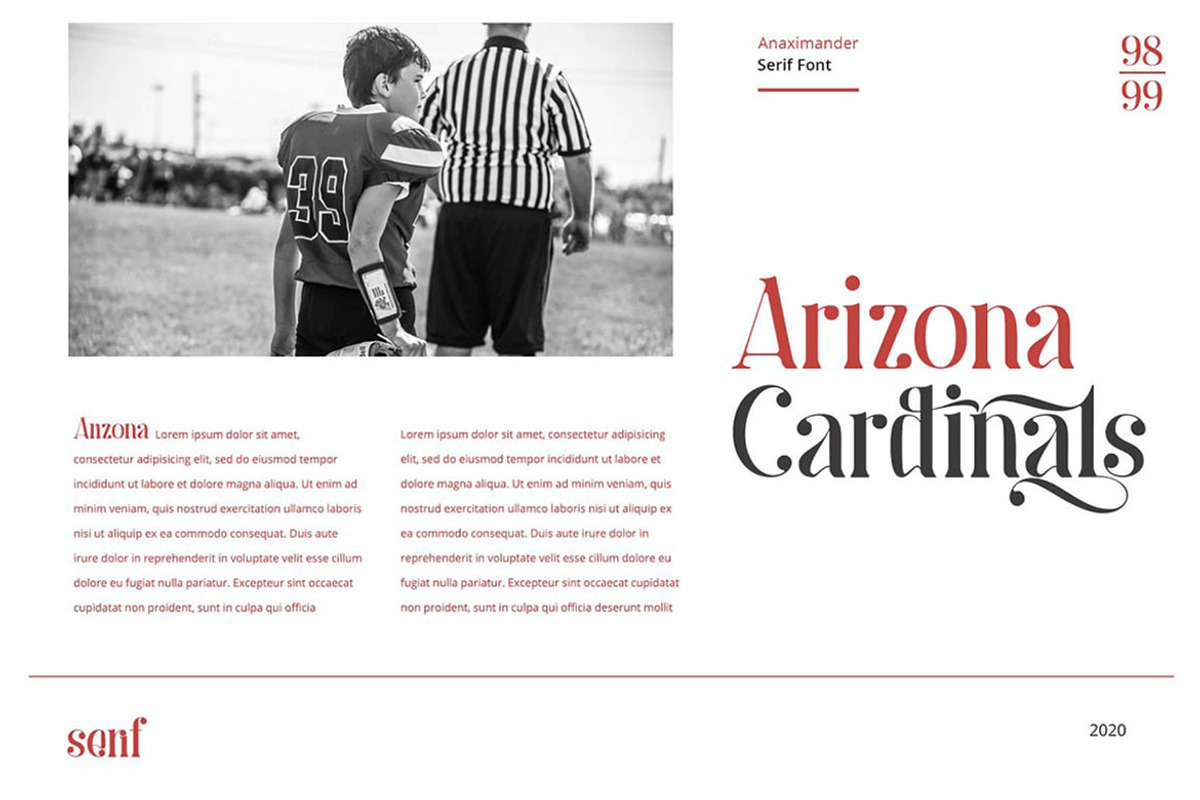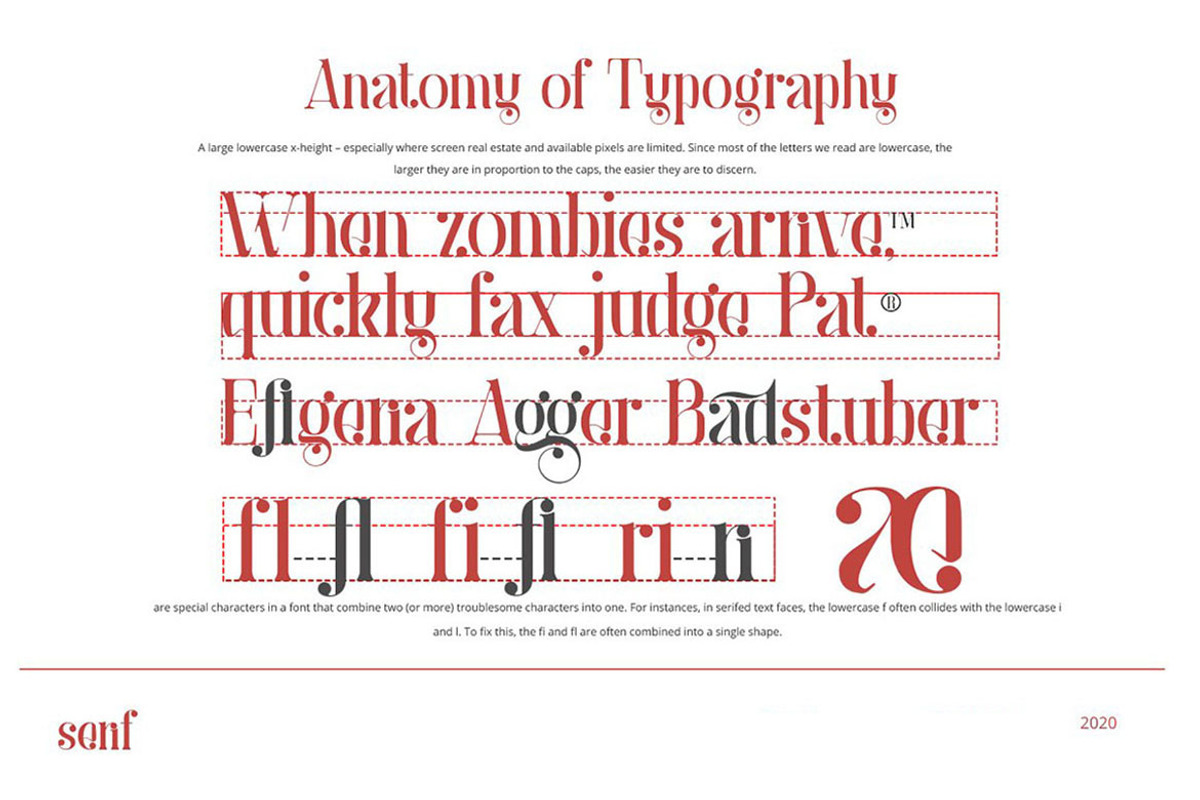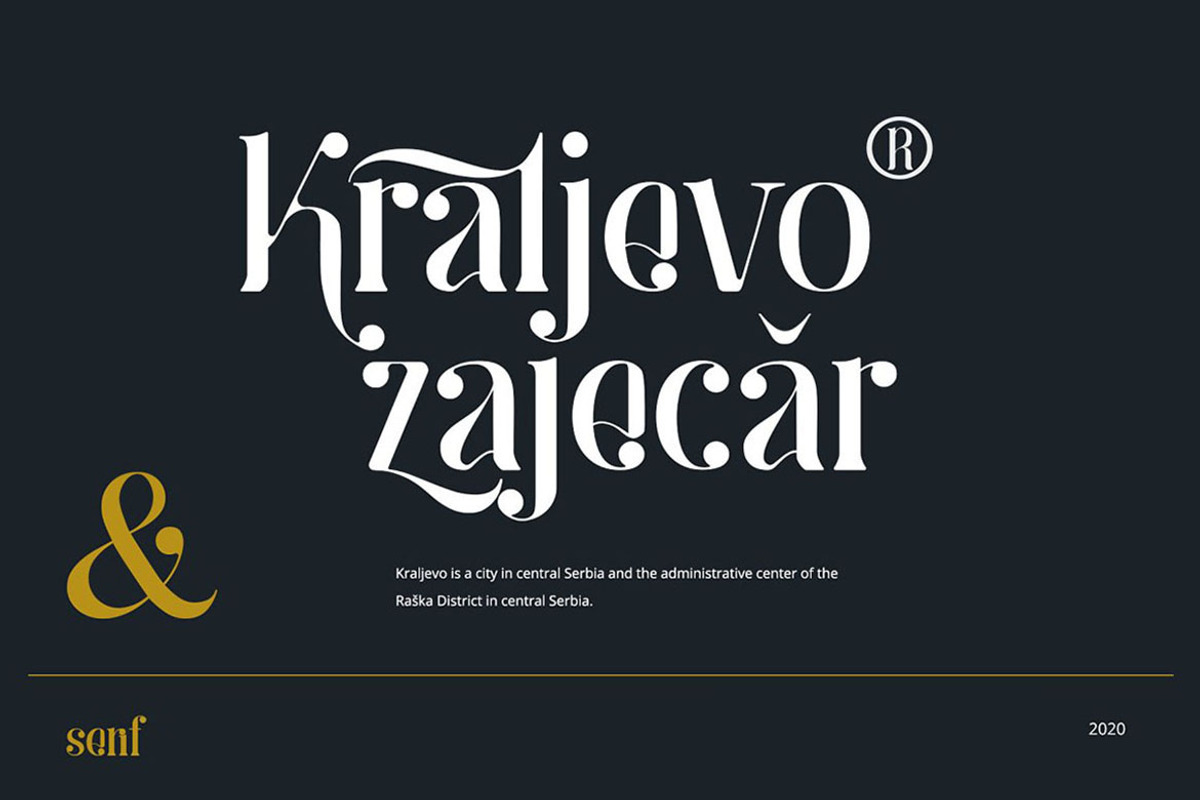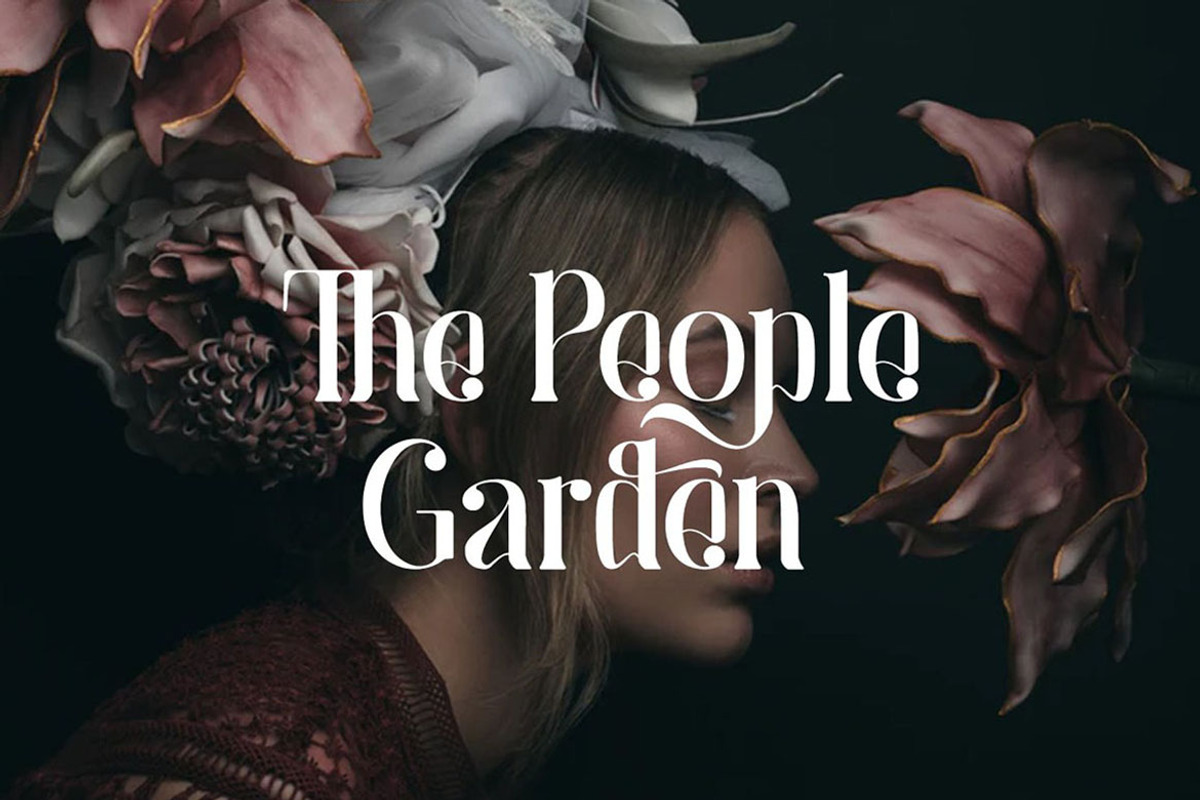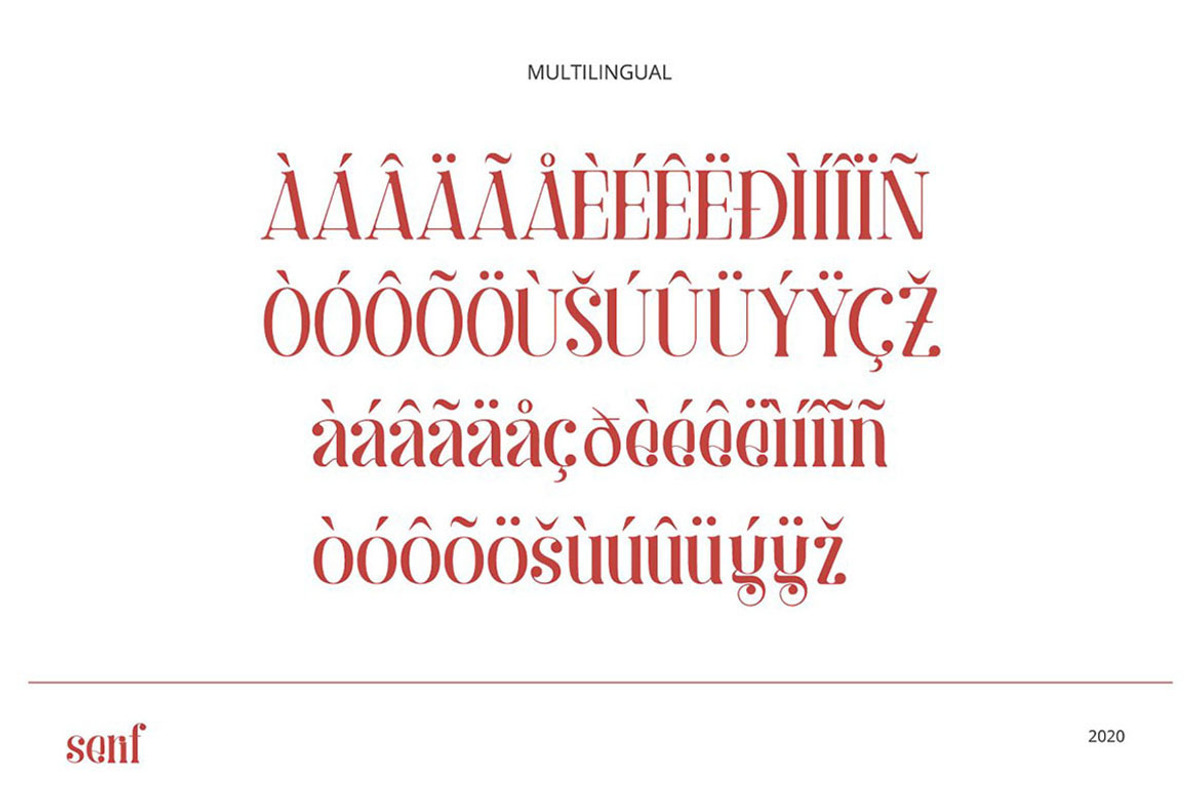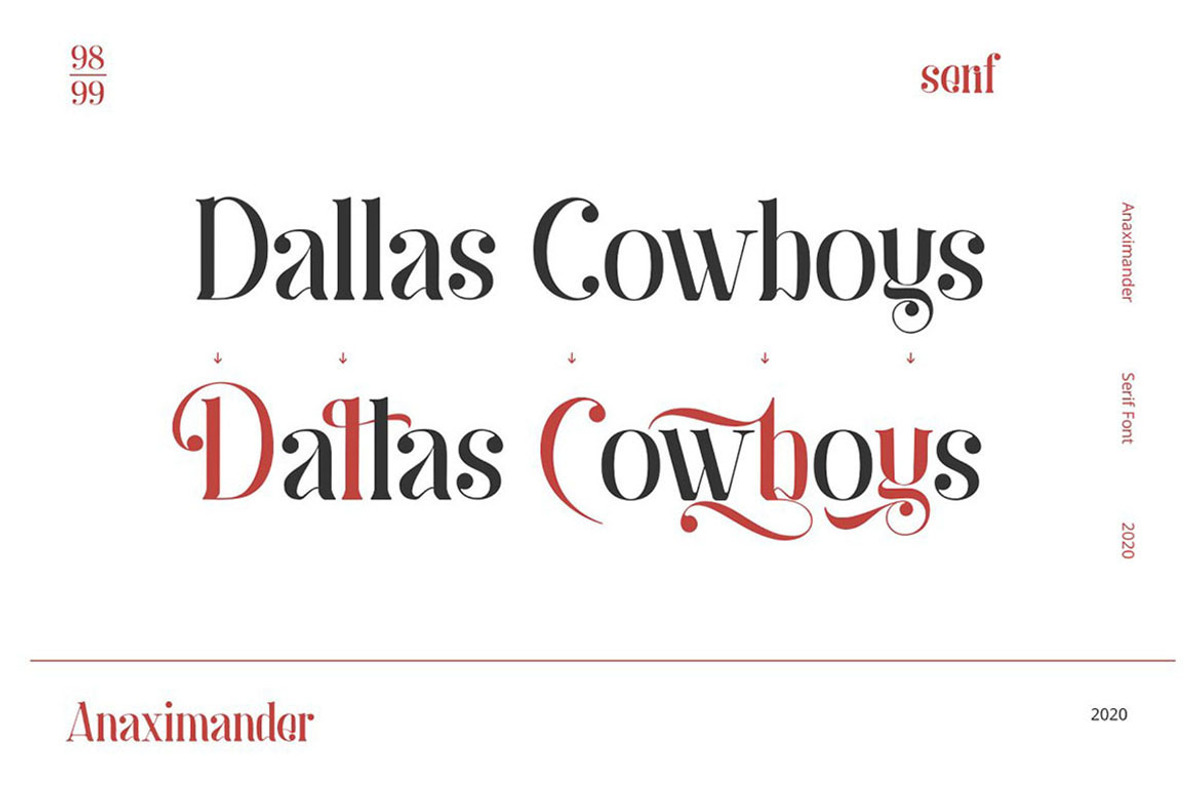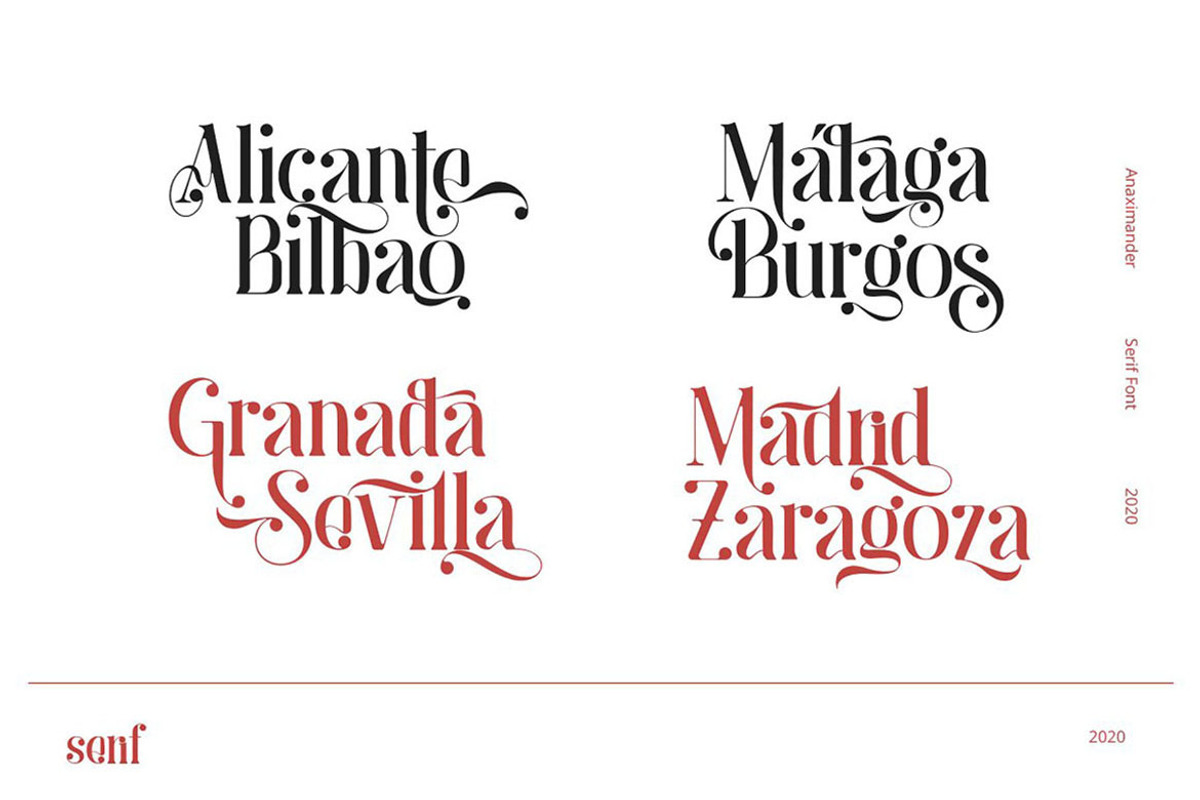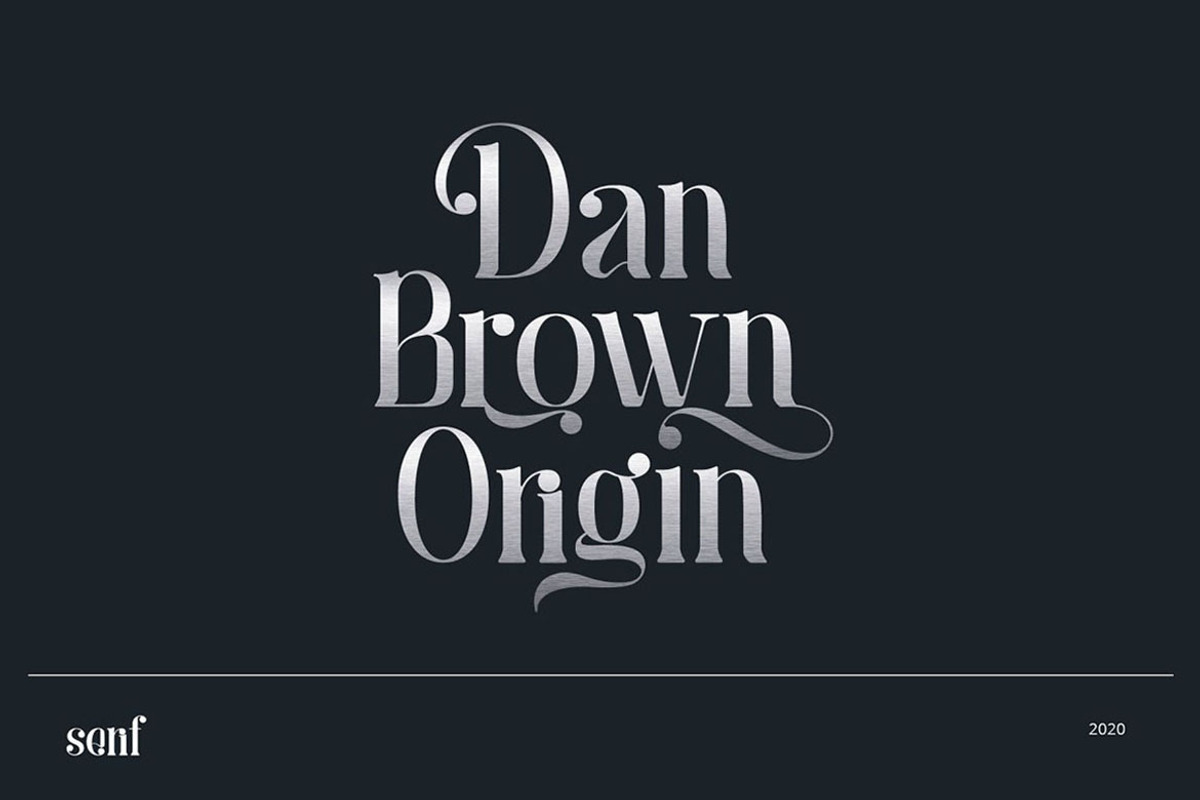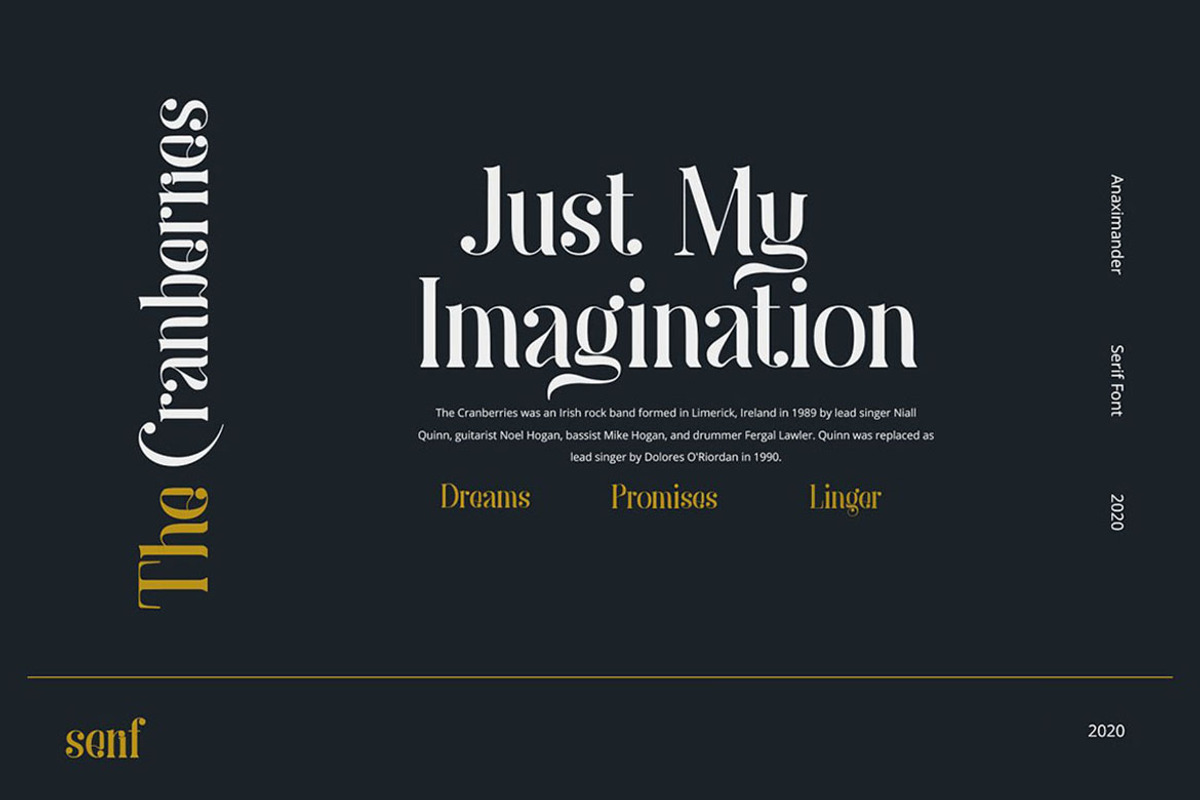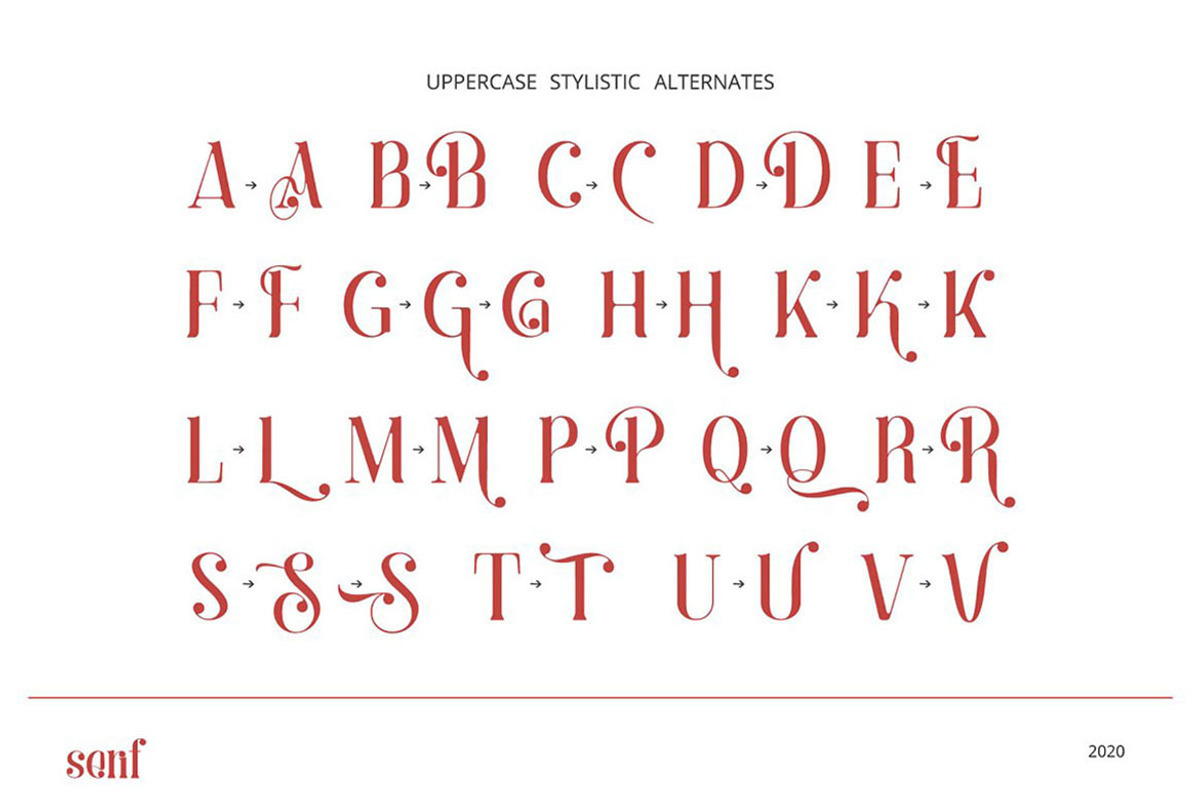
Anaximander Serif Font
A font that is inspired by vintage decorative letters or cards. With ornamental vintage style and lot of swashes you can create realistic headers. It works beautifully for any branding and advertising. You'll find a lot of alternate characters, ligatures and multilanguage characters in this elegant serif font :)